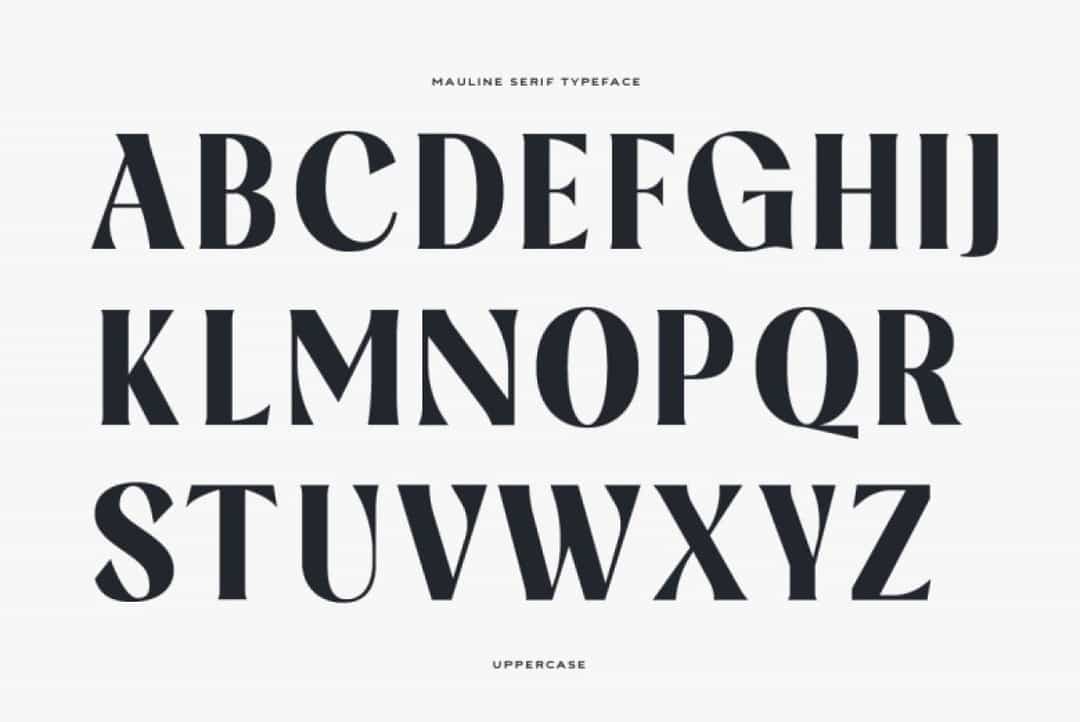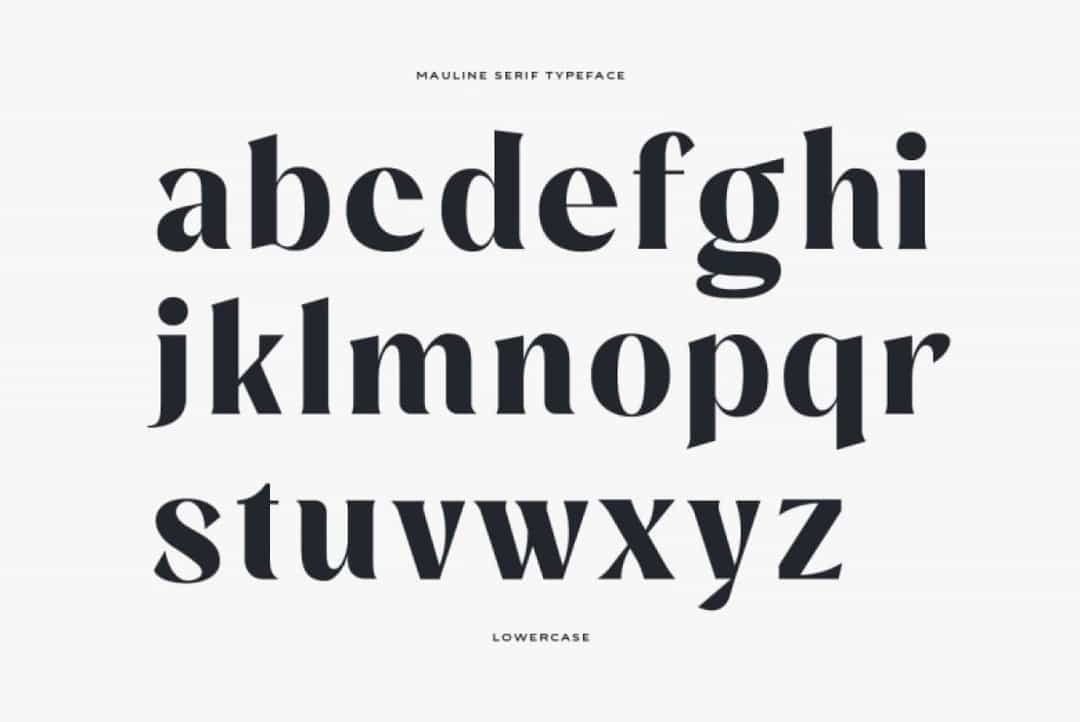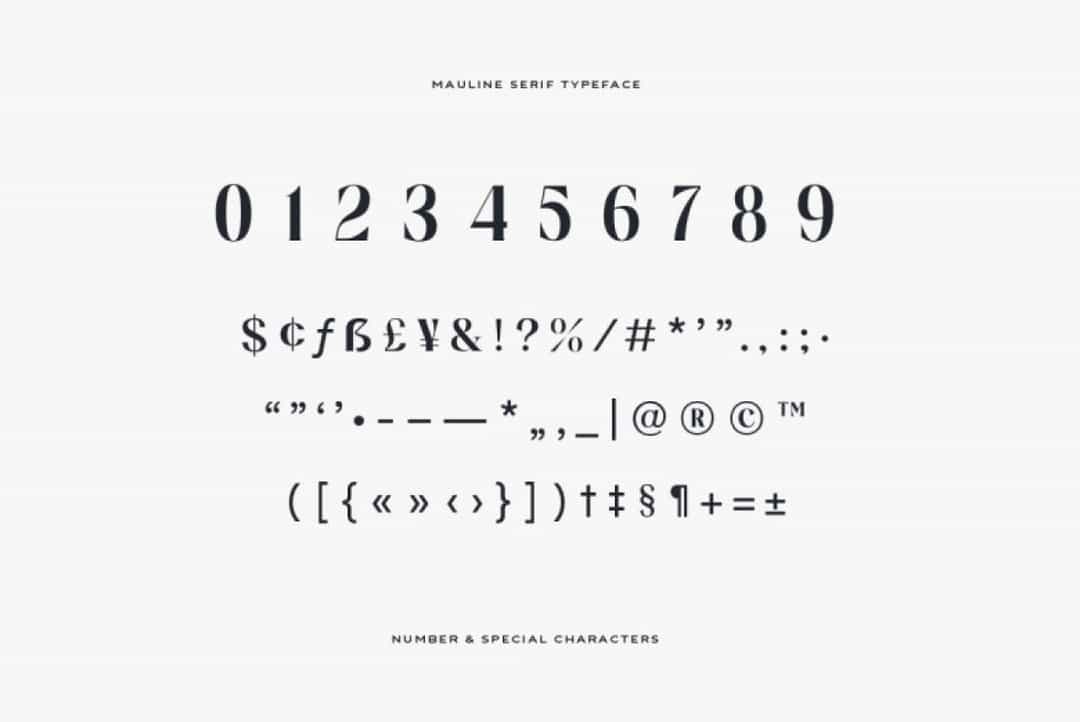
Mauline is an elegant modern font with superb readability that makes an outstanding choice for logo design, web design and print projects. With its clear characters and distinct letterforms as well as beautiful typographic features, this typeface makes an excellent choice for creating eye-catching designs that grab viewers’ attention.